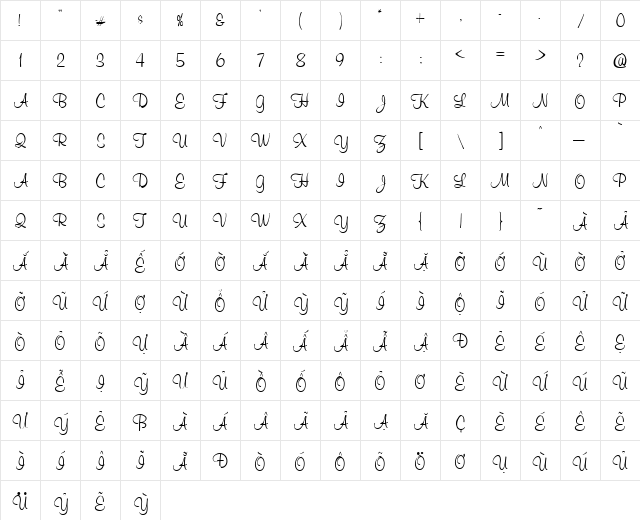
VPS Thanh Hoa Hoa Normal Font Preview
VPS Thanh Hoa Hoa Normal
Design Context for VPS Thanh Hoa Hoa Typeface
VPS Thanh Hoa Hoa is a composed and adaptable typeface that performs quietly and consistently across a wide range of design contexts.